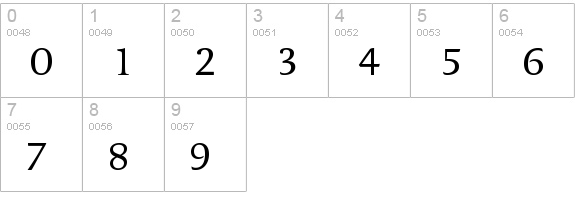
Introducing the exquisite DTLDorianT font, a versatile typeface that effortlessly blends classic elegance with a modern twist. This font is perfect for adding a touch of sophistication to any design project, whether it be for branding, editorial layouts, invitations, or social media graphics. DTLDorianT features sleek and stylish letterforms that exude a timeless charm, making it a go-to choice for those who appreciate refined aesthetics. The clean lines and balanced proportions of this font ensure readability while also adding a touch of sophistication to any text. Best of all, DTLDorianT is available for free download at FontsMarket.com, allowing designers and creatives to elevate their work without breaking the bank. Don't miss out on the opportunity to enhance your projects with this stunning font that combines tradition with a contemporary flair. Download DTLDorianT today and let your creativity shine!